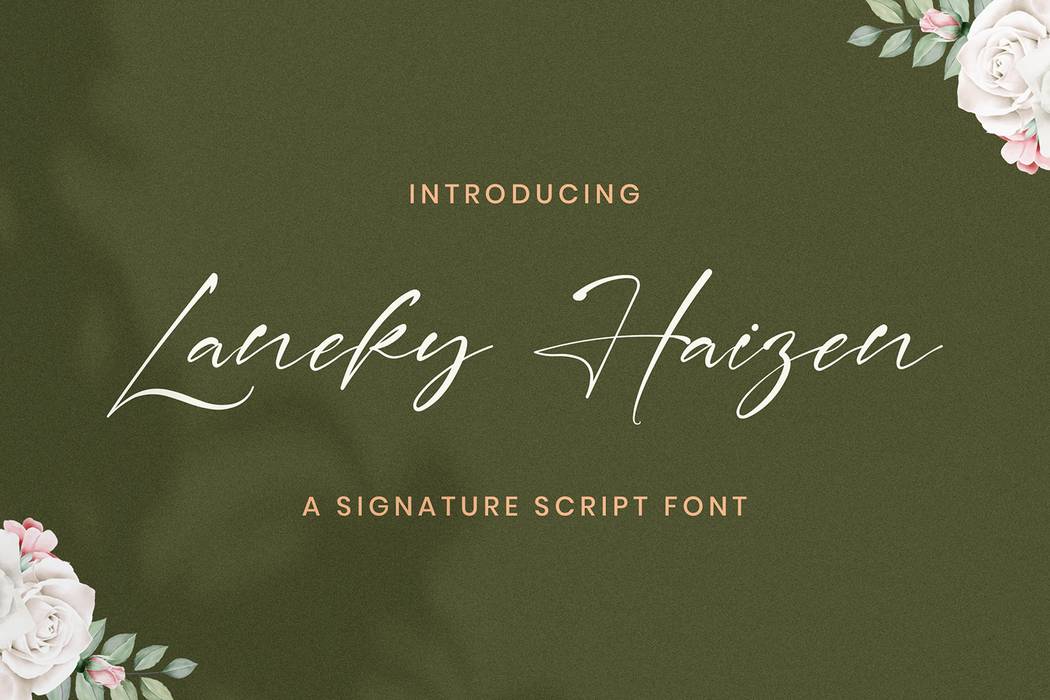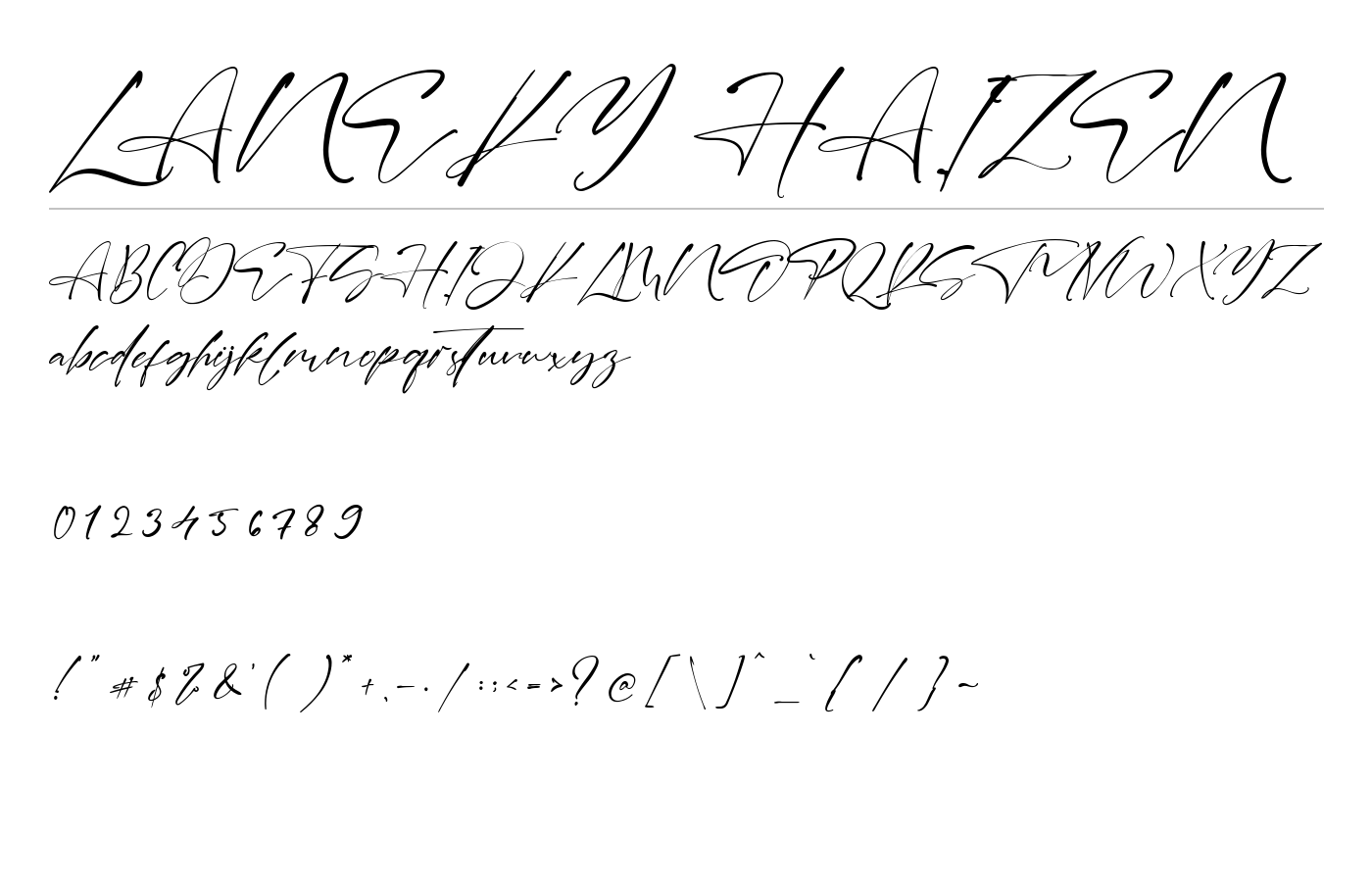
Laneky Haizen is a delicate, elegant script font characterized by its fine, flowing lines and graceful, handwritten style. Its light weight and high contrast strokes create a sophisticated and airy feel, making it ideal for luxury branding, invitations, and editorial projects that seek a refined, artistic touch. This font’s unique, fluid letterforms lend a personal, stylish vibe, perfect for designs that want to convey elegance and creativity.
Laneky Haizen Font